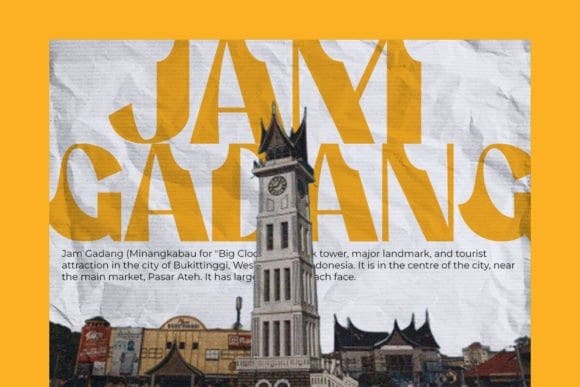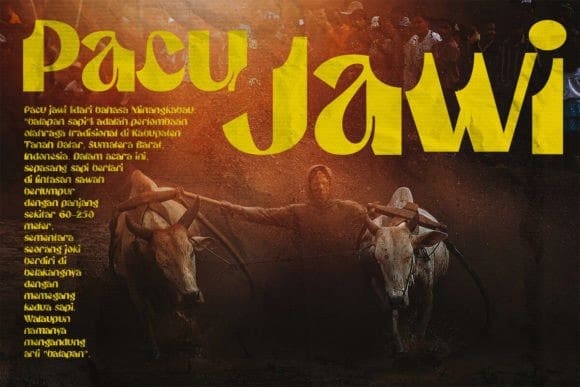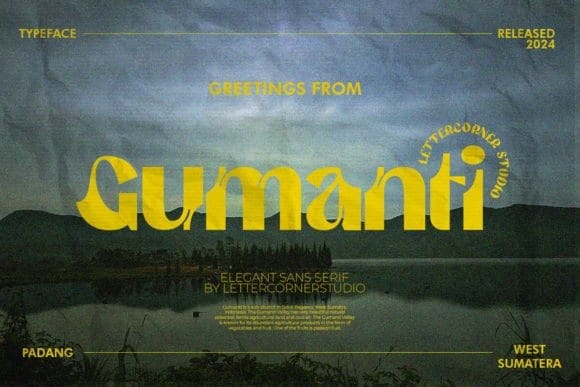
Gumanti Font
Gumanti Font is a captivating new sans serif font that exudes timeless elegance with its graceful curves, making it a sophisticated choice for any design project. Combines classical elements with a modern twist, resulting in a font that is both beautiful and distinctive, perfect for creating a sense of luxury and elegant